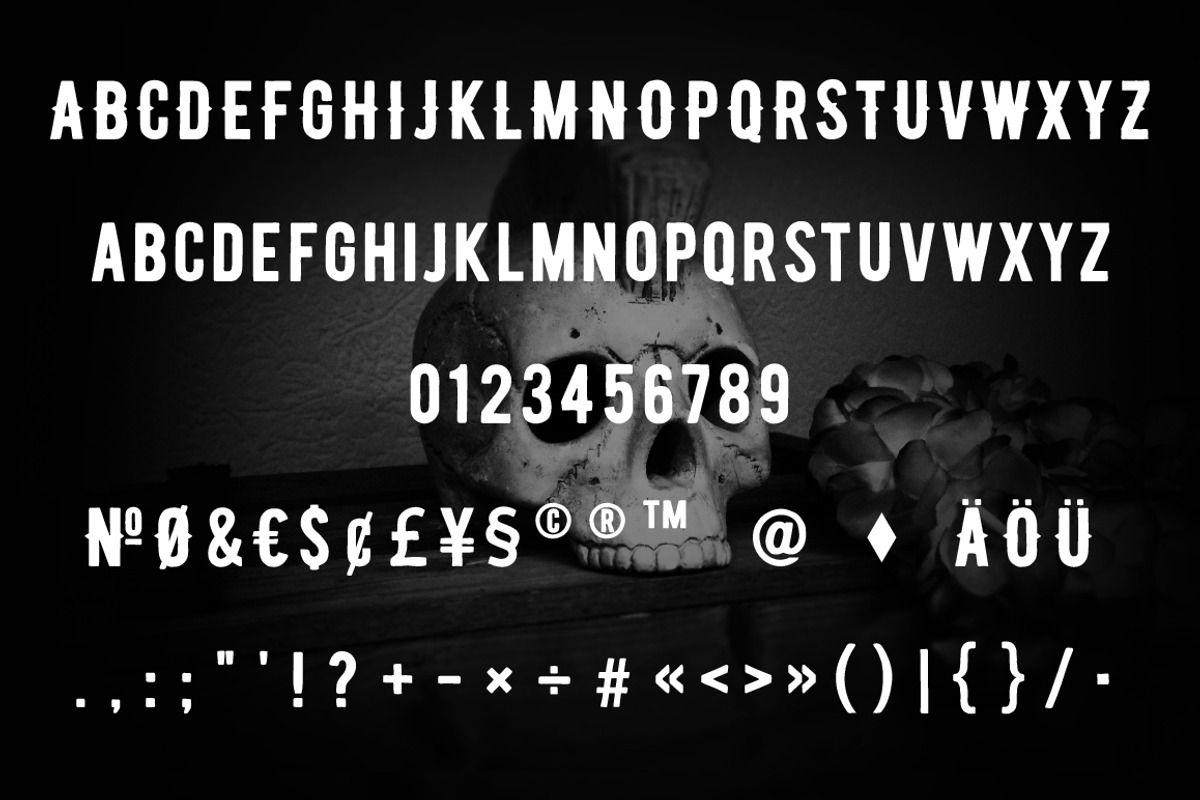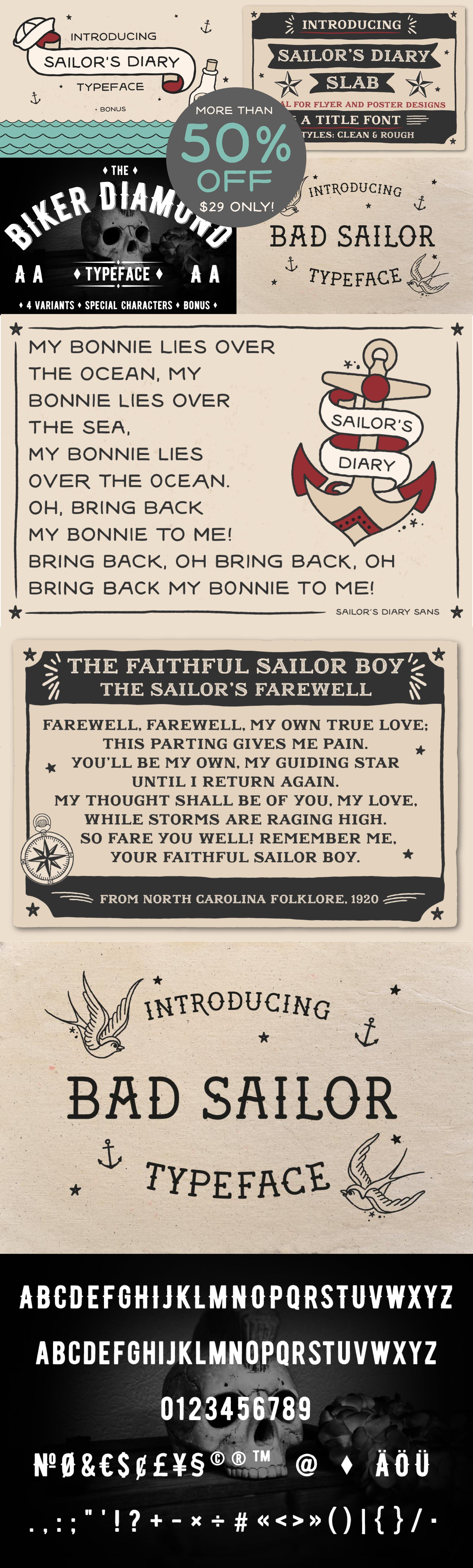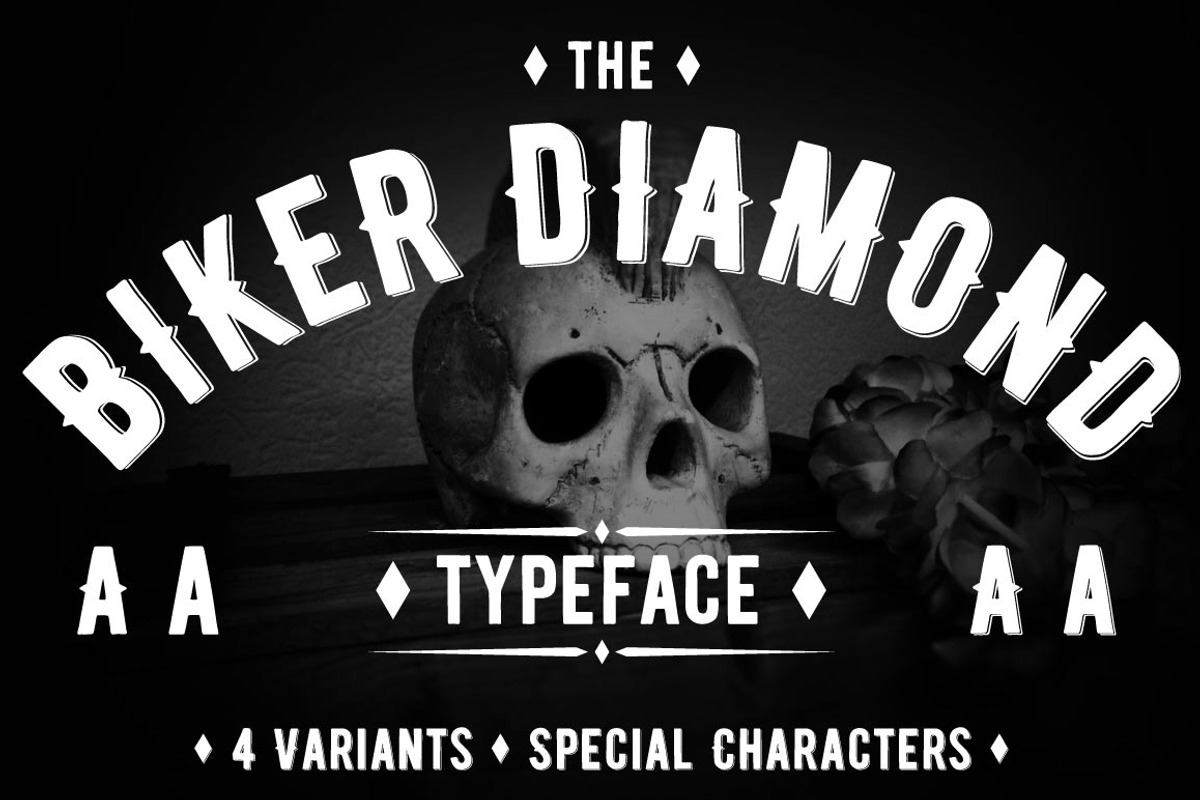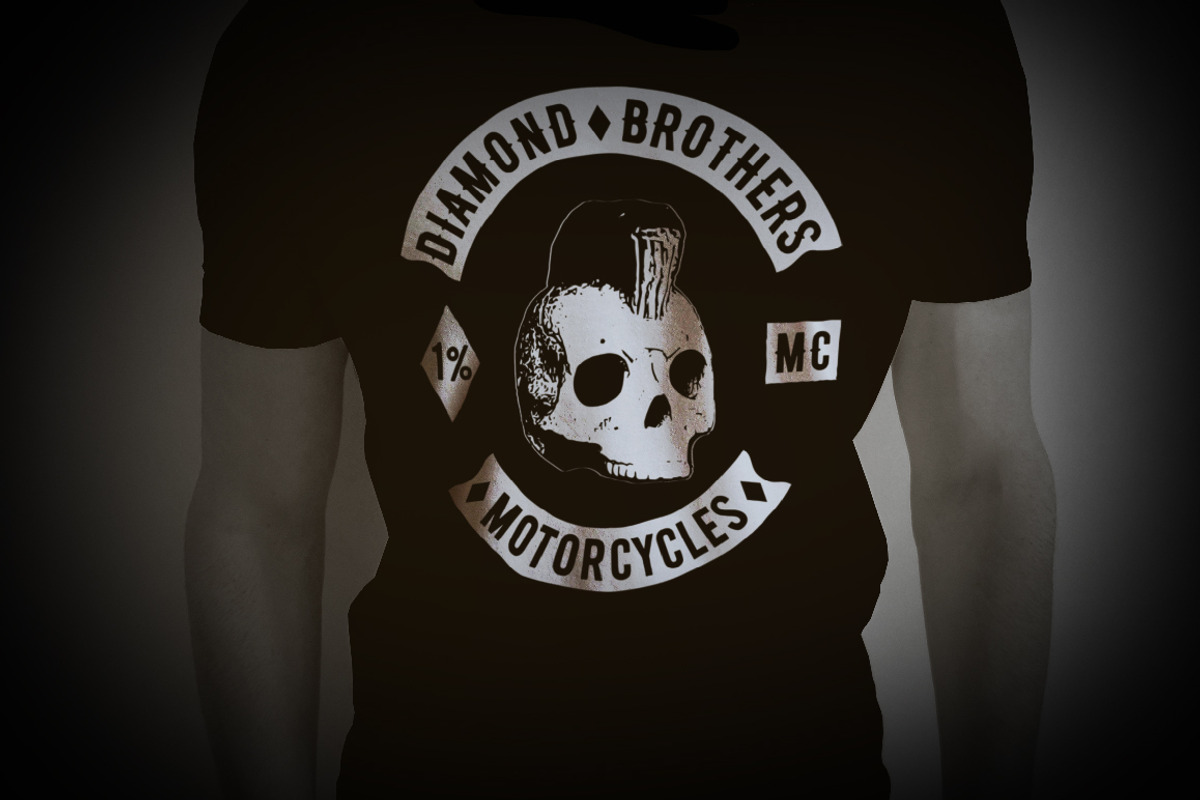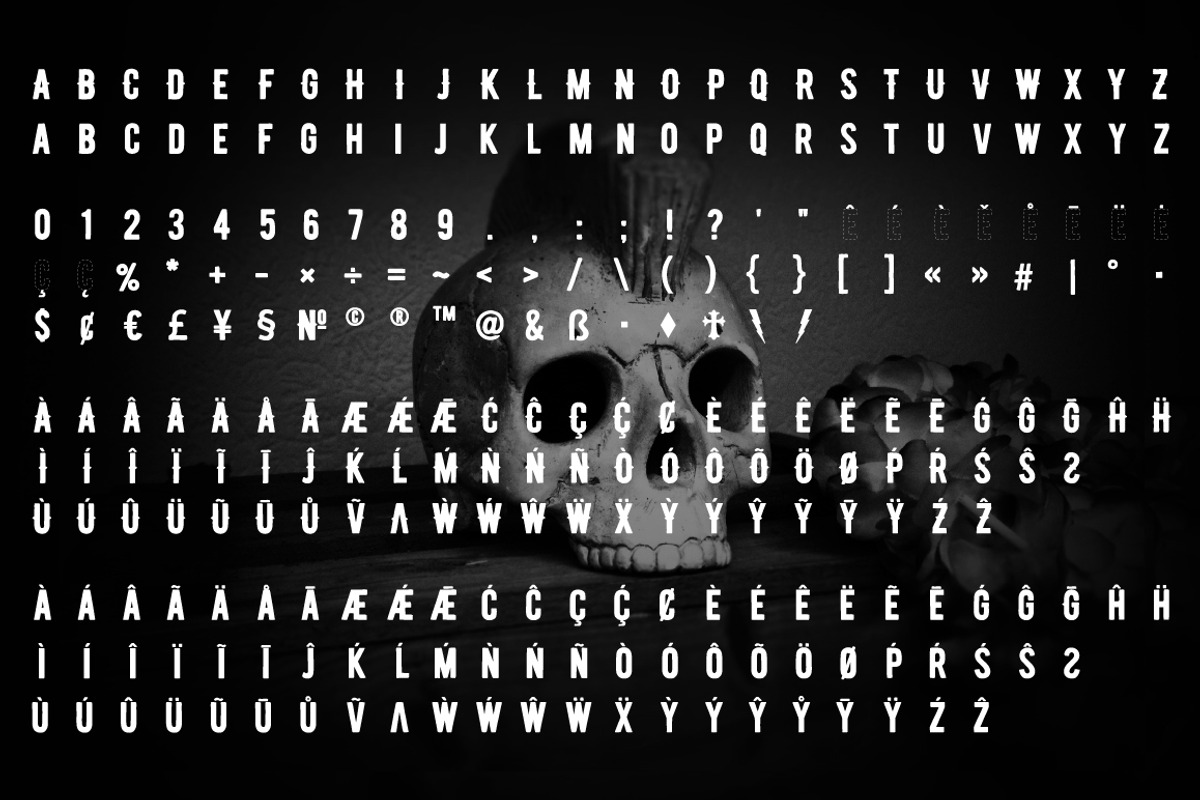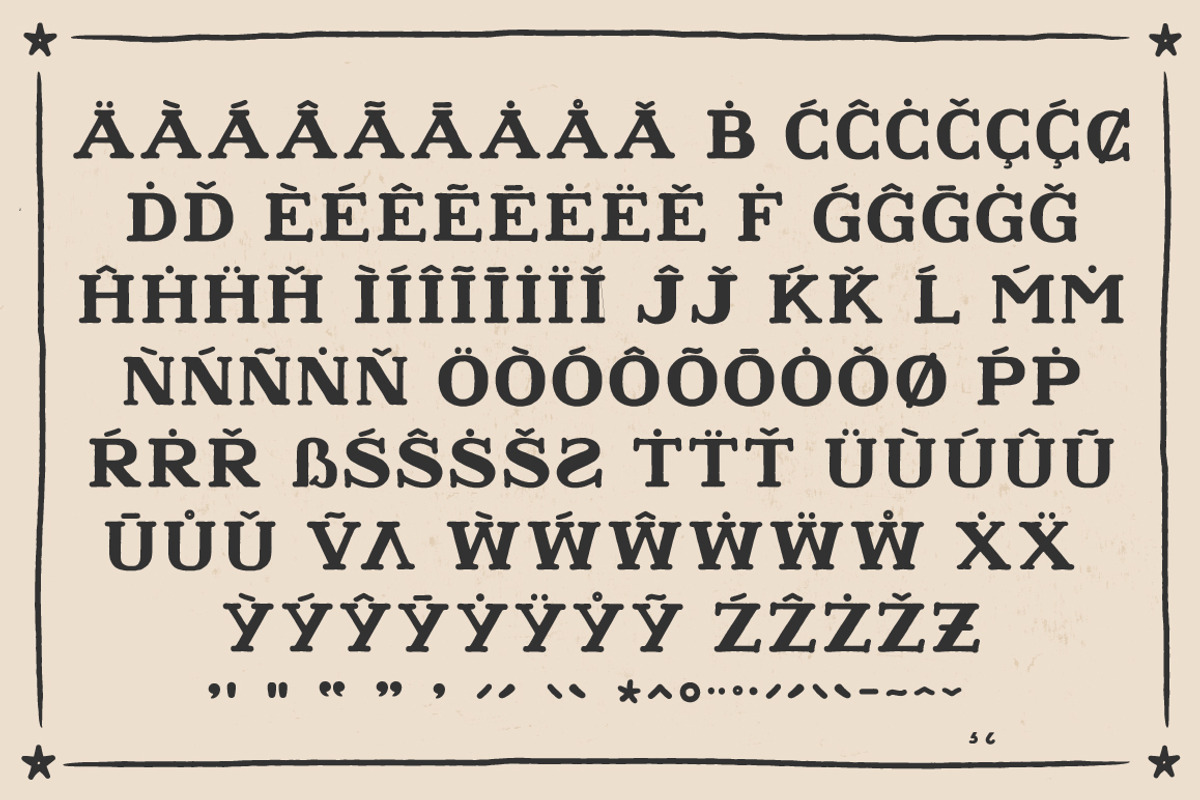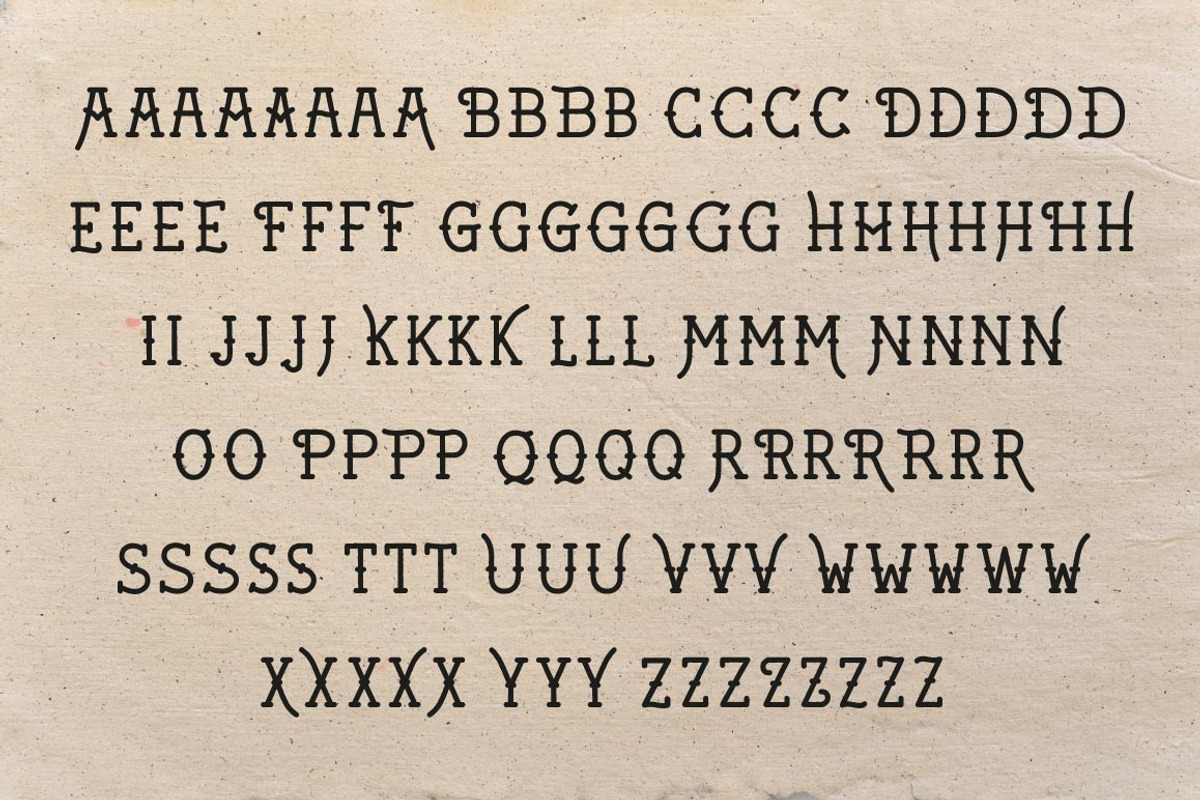
Wicked Tattoo Font Bundle
Sailor´s Diary Sans $28
Ideal for banners and scrolls with traditional tattoo designs or posters with a lot of text. With more than 220 alternate letters and more than 180 special characters, punktuations and their alternates you can give text a real hand written character.
Sailor´s Diary Title Slab $28
This font is ideal for posters and flyer in traditional tattoo design styles and works perfect with Sailor´s Diary Sans.
- 2 Styles - Clean & Rough
Bad Sailor $26
Traditional Tattoo Font ideal for Banners and Scrolls.
Biker Diamond $24
Retro Style Font in 4 Variants.